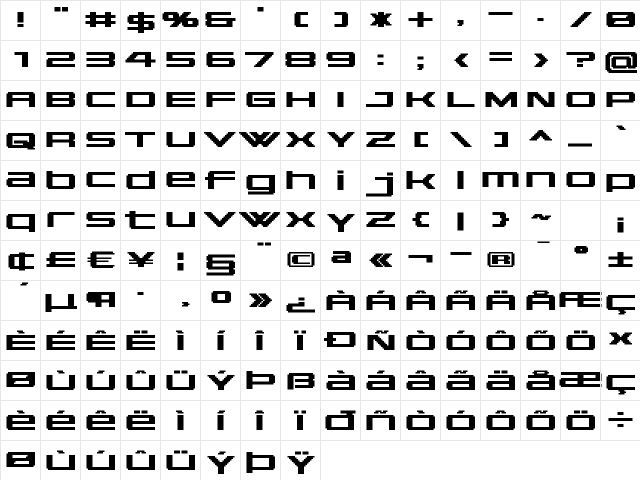
Sportster Extra Bold Regular
Design Context for Sportster Extra Bold Typeface
Sportster Extra Bold has the bold swagger of sports branding: strong, assertive letterforms designed to dominate headlines and jerseys alike. The heavy weight commands attention and anchors typographic hierarchies.
A natural choice for gym brands, fantasy sports, jersey lettering, and action-driven headlines.
Font Pairing: Use alongside a condensed or geometric sans for supporting copy — keep the pairing bold, functional, and free of ornament.
Pro Tip: Use Sportster Extra Bold in all-caps headlines where its athletic energy can fully express itself. Pair with a solid, simple sans for supporting text.